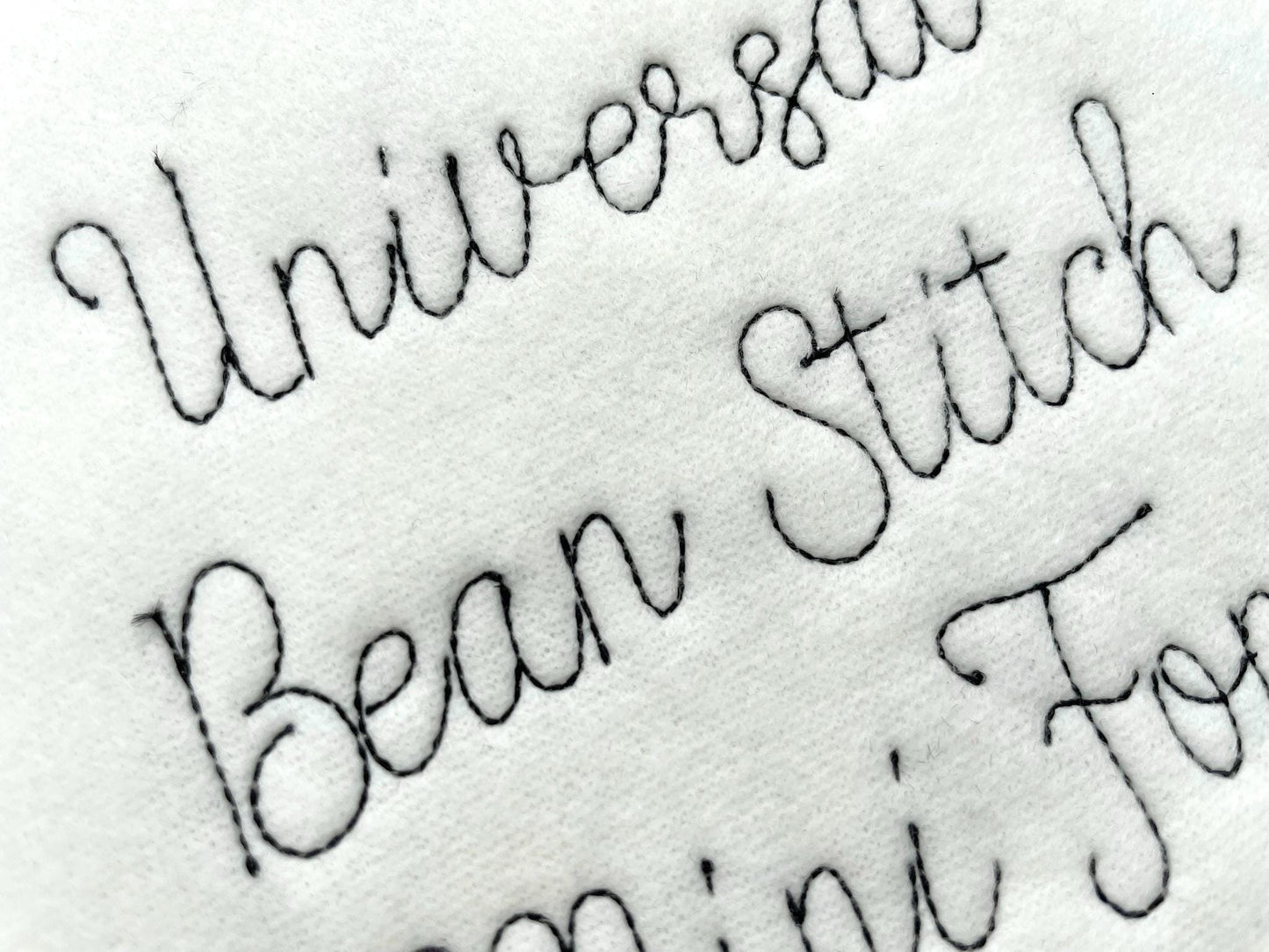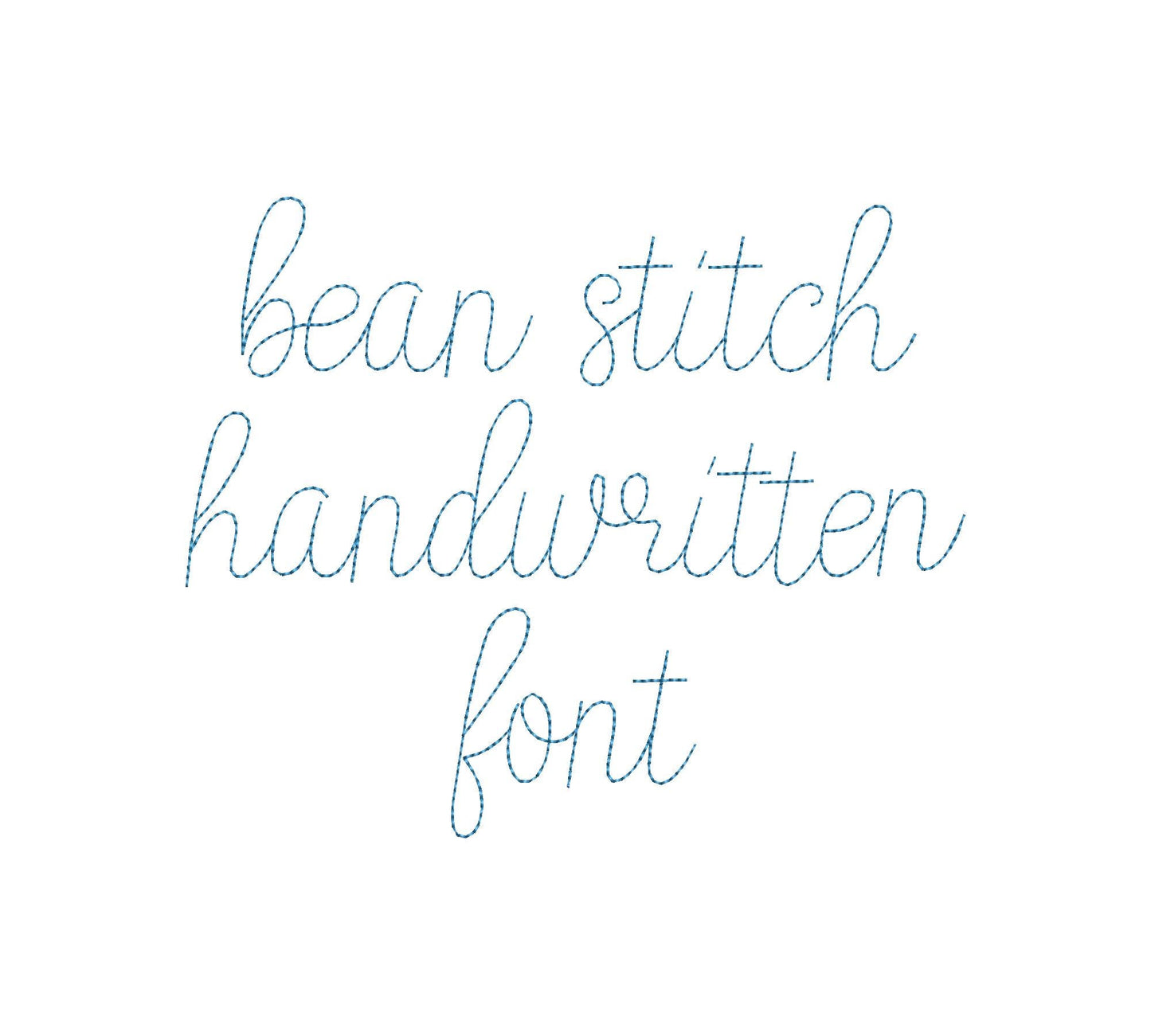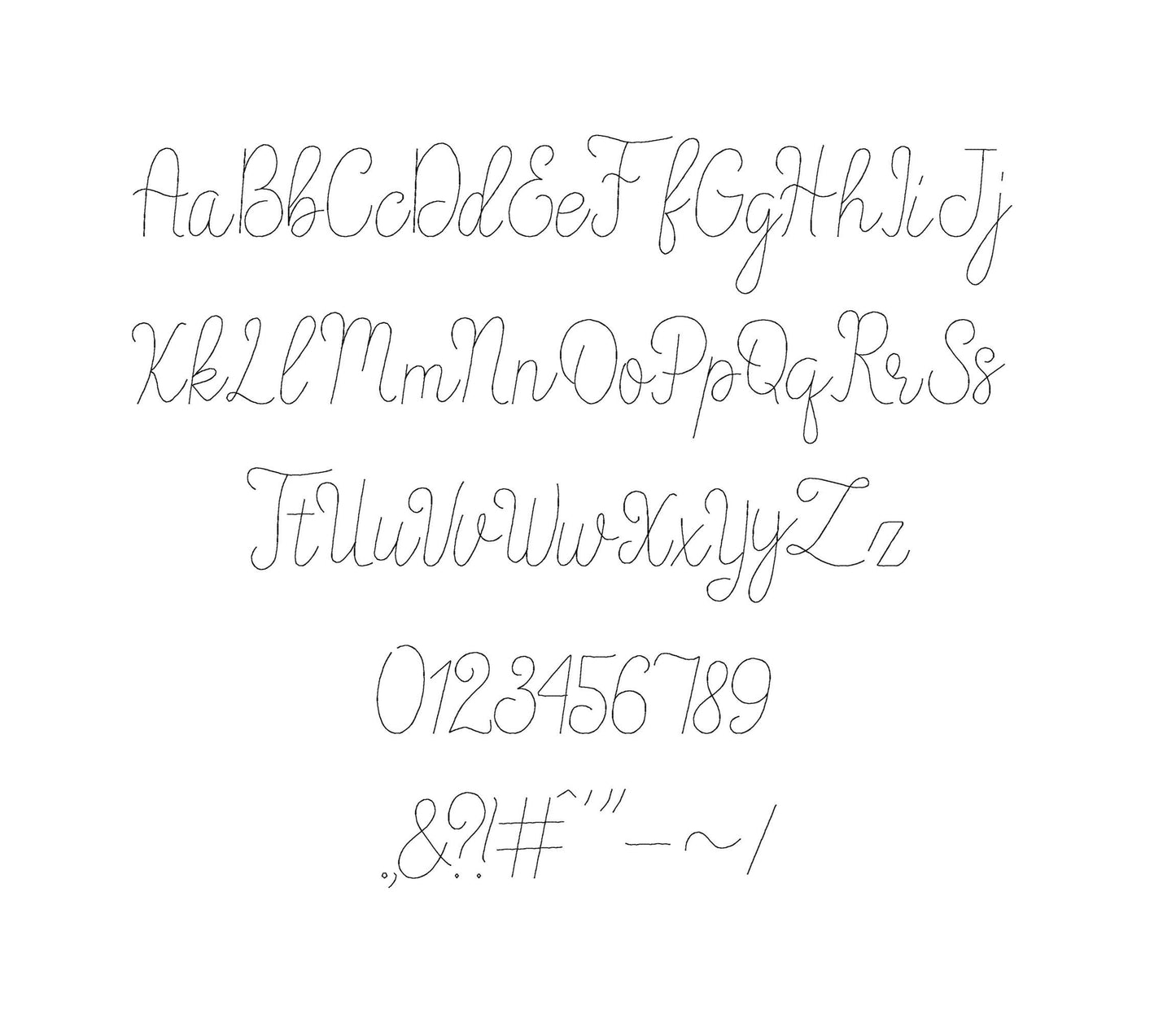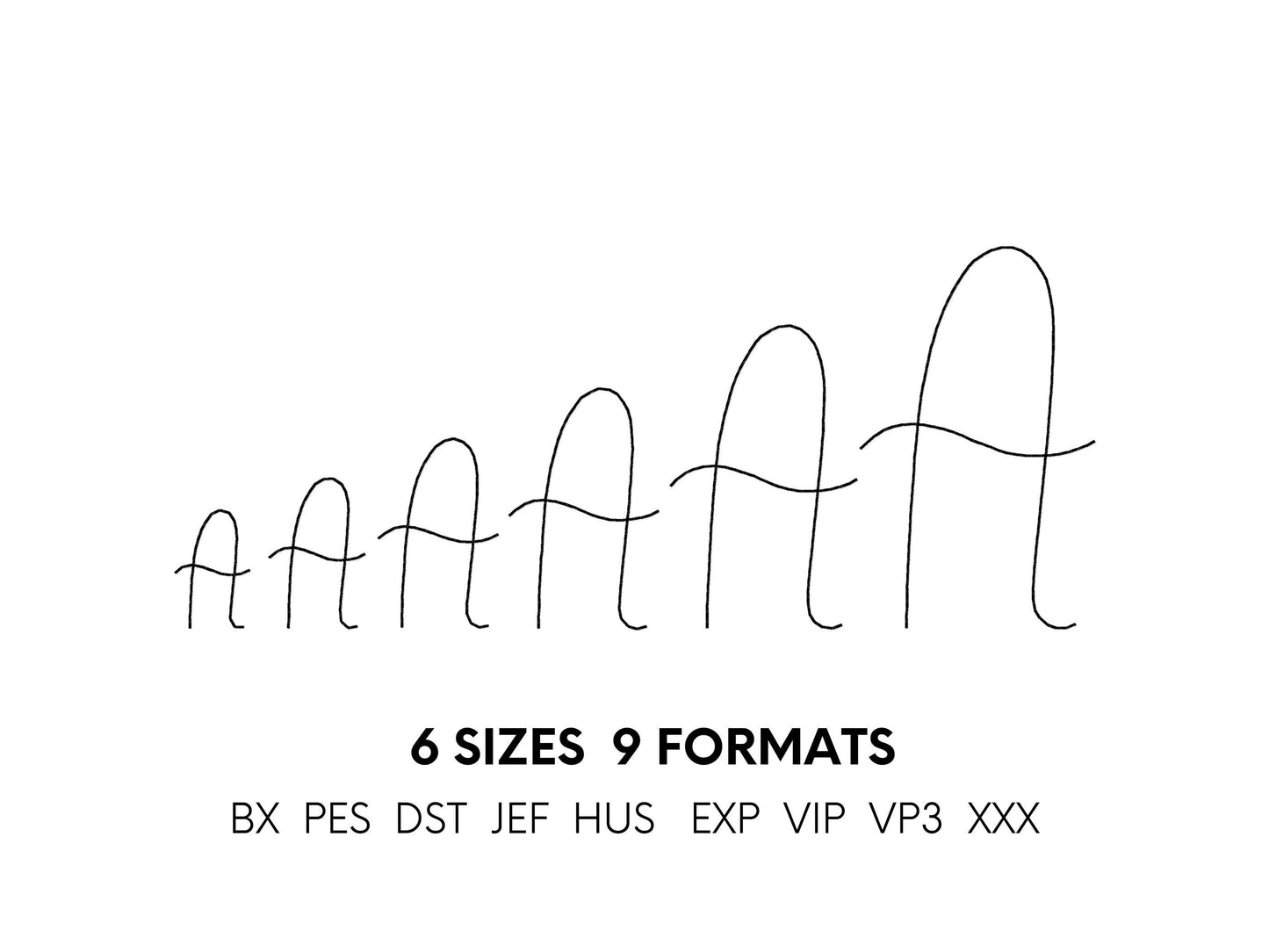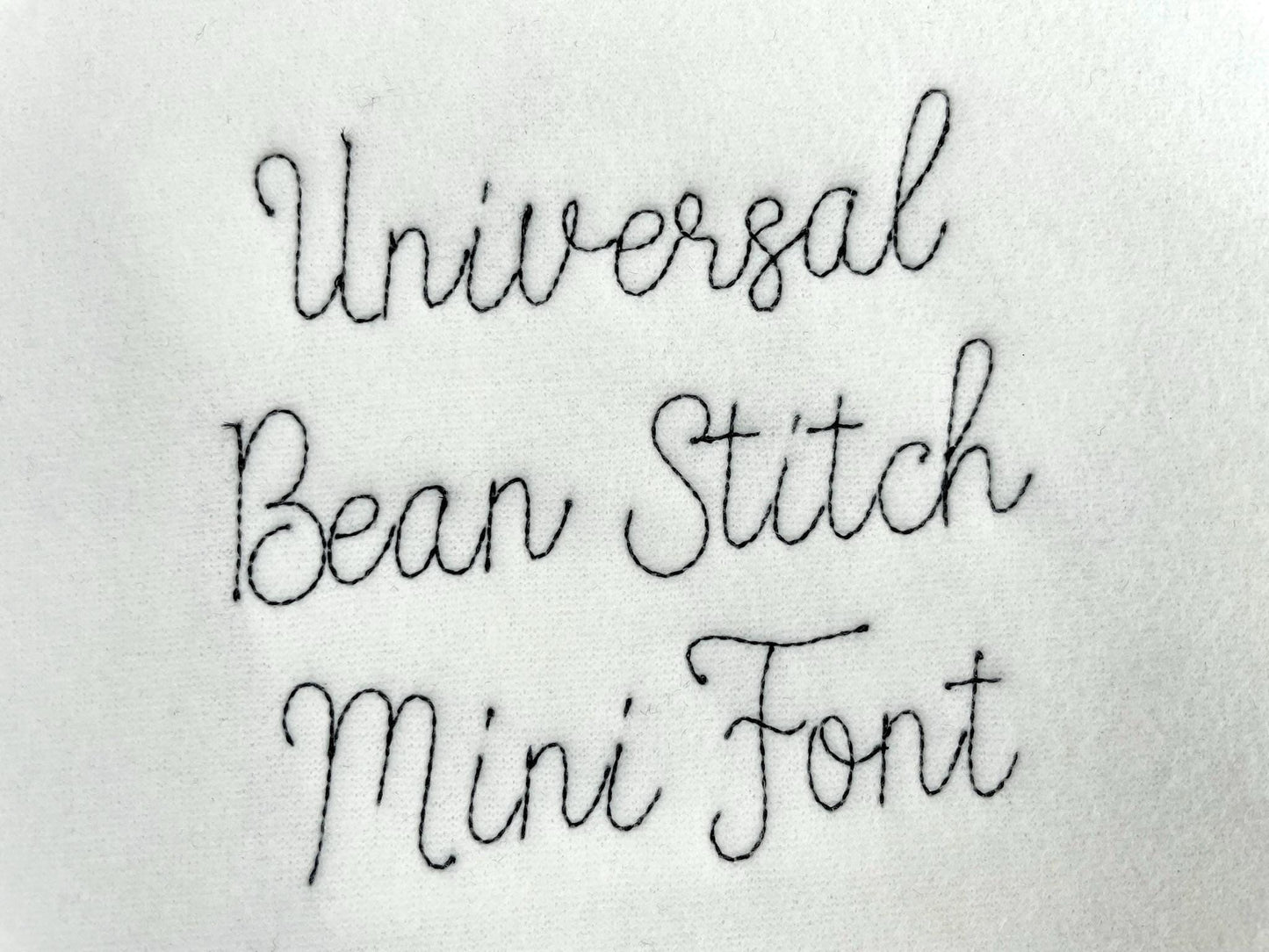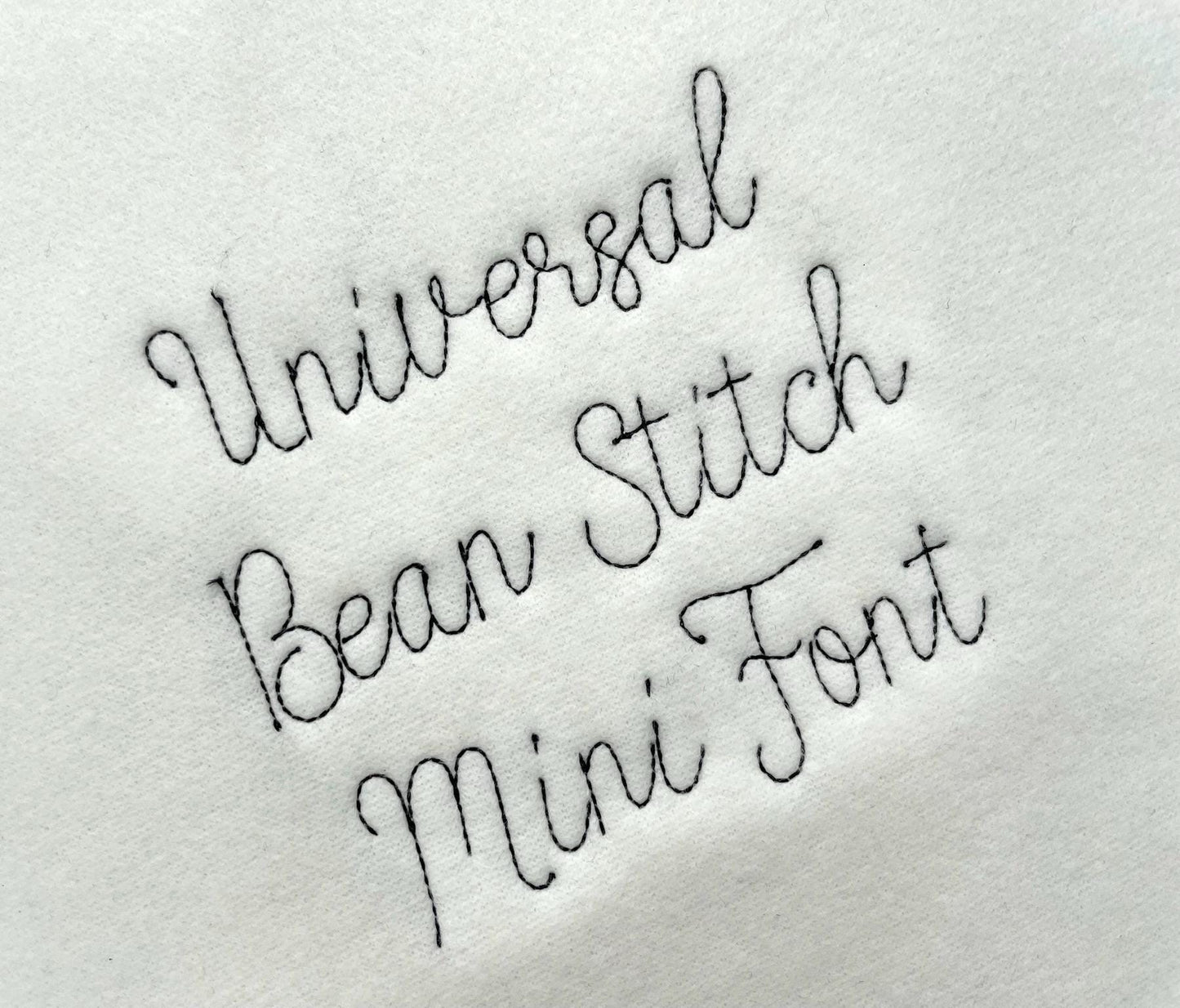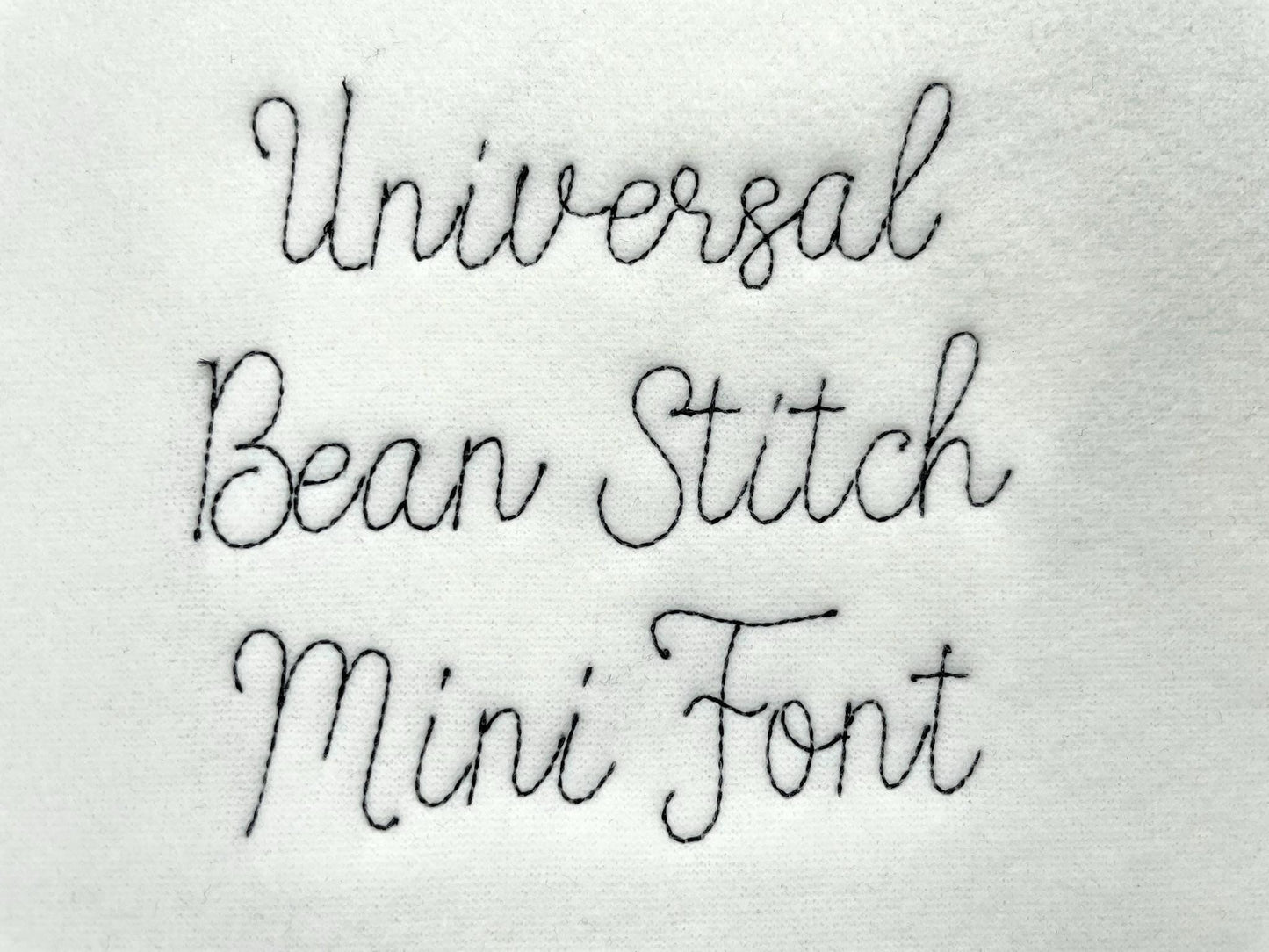
Handwritten Line Font Quick Light Bean Stitch
Or click to open the linkA handwritten line font in quick light bean stitch. Easy for names, sayings, monograms and labels.
Uppercase and lowercase letters, numbers 0 to 9 and lots of punctuation, in six sizes: 1, 1.2, 1.5, 2, 2.4 and 3 inches.
- Bean stitch handwritten line font
- Uppercase and lowercase letters, numbers 0-9, punctuation
- 6 sizes, 1 to 3 in